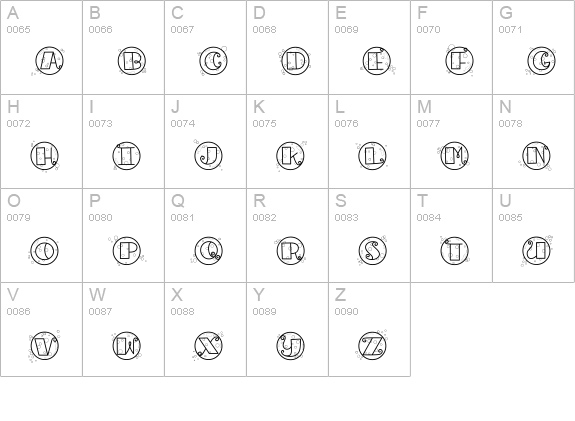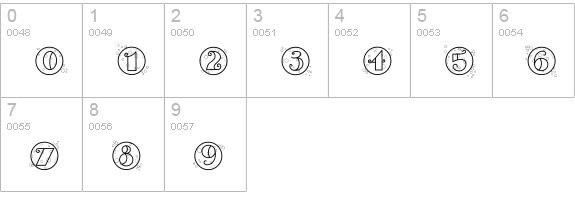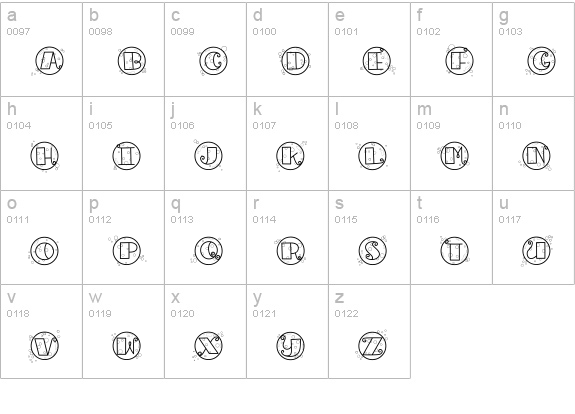
CK Bubbles Font Details
Introducing CK Bubbles font, a charming and playful typeface that will bring a touch of whimsy to your designs. This delightful font features rounded edges and a bubbly appearance, making it perfect for projects that require a fun and friendly aesthetic. CK Bubbles is ideal for creating eye-catching headlines, greeting cards, invitations, and more. Best of all, CK Bubbles is available for free download at FontsMarket.com. Whether you're a designer looking to add a playful twist to your work or someone who simply appreciates unique and creative fonts, CK Bubbles is sure to delight. Download this charming font today and let your creativity bubble over!